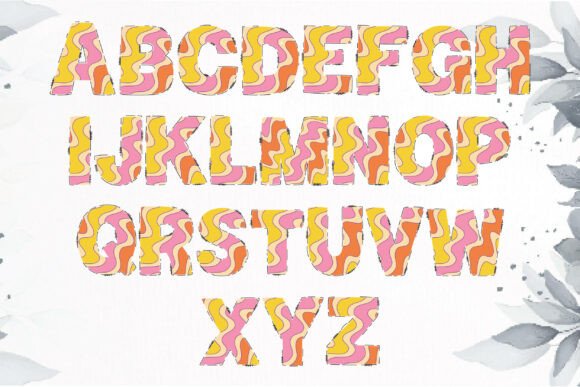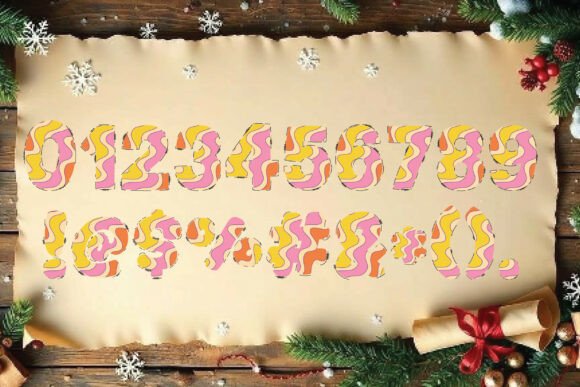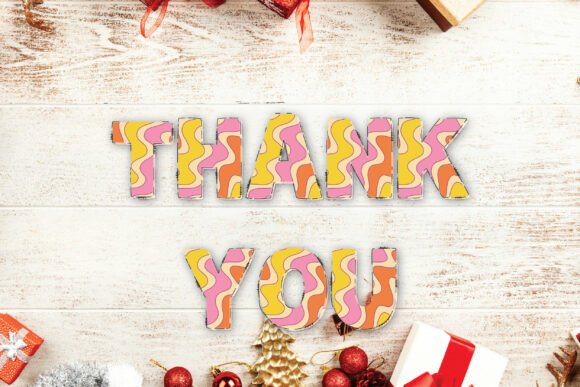
π¬ Christmas Movie Color Palette Font: Bringing Cinematic Holiday Magic to Your Projects
Are you looking to add a touch of festive flair to your holiday projects? Look no further than the Christmas Movie Color Palette Alphabet & Letters Pack β Festive Multi-Color Edition. This comprehensive pack features letters inspired by the classic colors of beloved Christmas movies, perfect for bringing cinematic holiday magic to your designs.
What is the Christmas Movie Color Palette Font?
The Christmas Movie Color Palette Alphabet is a unique and versatile font pack that captures the essence of classic Christmas movies. Each letter is carefully crafted to reflect the iconic colors of the holiday season, evoking feelings of nostalgia and wonder. From the rich reds and greens of “It’s a Wonderful Life” to the soft pastels of “Elf,” this font pack is a treasure trove of inspiration for designers and crafters.
Features of the Christmas Movie Color Palette Alphabet & Letters Pack
- Festive Multi-Color Edition: This pack features a wide range of colors inspired by classic Christmas movies, ensuring that your projects will stand out with a unique and festive flair.
- Cinematic Holiday Magic: Each letter is designed to evoke the magic of the holiday season, perfect for adding a touch of cinematic wonder to your designs.
- Versatile and Adaptable: Use the Christmas Movie Color Palette Alphabet for a variety of projects, including Christmas cards, invitations, posters, gift tags, party dΓ©cor, classroom crafts, scrapbooking, and digital design projects.
Uses for the Christmas Movie Color Palette Alphabet & Letters Pack
The possibilities are endless with the Christmas Movie Color Palette Alphabet & Letters Pack. Here are a few ideas to get you started:
- Christmas Cards and Invitations: Add a personal touch to your holiday cards and invitations with custom letters and designs inspired by classic Christmas movies.
- Posters and Prints: Create eye-catching posters and prints featuring your favorite Christmas movie quotes or lyrics, using the iconic colors of the holiday season.
- Gift Tags and Decor: Add a festive touch to your gifts and decorations with custom gift tags and decor featuring the Christmas Movie Color Palette Alphabet.
- Classroom Crafts: Bring the magic of the holiday season into your classroom with fun and interactive crafts featuring the Christmas Movie Color Palette Alphabet.
- Scrapbooking and Digital Design: Use the Christmas Movie Color Palette Alphabet to add a touch of festive flair to your scrapbooking and digital design projects.
Tips and Tricks for Using the Christmas Movie Color Palette Alphabet & Letters Pack
Here are a few tips and tricks to help you get the most out of the Christmas Movie Color Palette Alphabet & Letters Pack:
- Experiment with Different Colors: Don’t be afraid to try out different color combinations to find the perfect look for your project.
- Mix and Match Fonts: Combine the Christmas Movie Color Palette Alphabet with other fonts to create a unique and eye-catching design.
- Use the Letters as a Starting Point: Use the letters as a starting point for your design, and then add your own personal touches and flair.